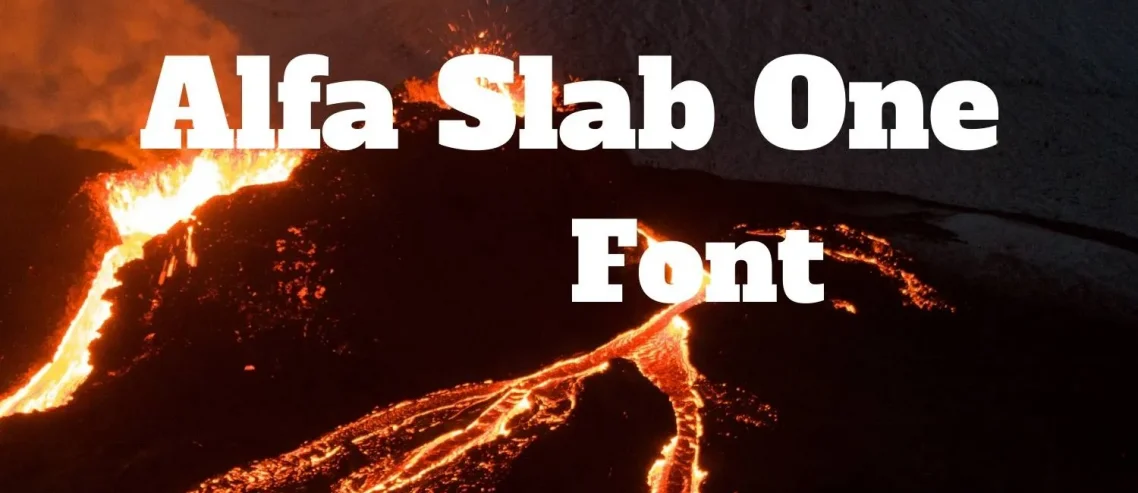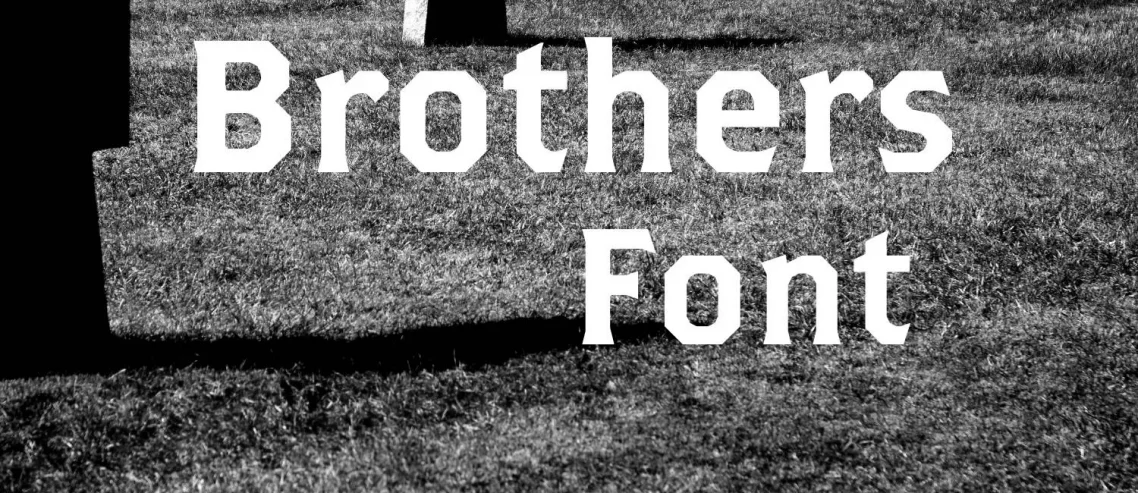
Runen Font Free Download
Runen Font is a typeface with glyphs representing the Elder Futhark runes. It was designed by Peter Johnstone in 1974 and revised in 2005. The font is Unicode compliant and can be used on any computer or operating system that supports the Unicode standard. This font is also be generated through the generator tool. You …
Grand Font Free Download
Grand Font is a beautiful and historic area in the city of Sarajevo. It is located on the slopes of Mount Trebevic and offers stunning panoramic views of the city. This Font has a long and rich history, dating back to the Ottoman Empire. Today, it is a popular tourist destination due to its natural …
Flexo Font Free Download
Flexo font is a sans-serif typeface designed by Dutch graphic designer Pieter van Rosmalen. It was released in 2013 by Rosmalen’s independent type foundry, Just van Rossum. This font is a geometric sans-serif with restrained curves, designed for screen use. The font is available in six weights, from thin to black, with matching italics. This …
Hello Sunshine Font Free Download
Hello, Sunshine font is a handwritten font created by Cosimo Lorenzo Pancini and Andrea Tartarelli. The font was designed as part of the “FontStruct” font-building contest in 2009. IF you want to get a new unique shape then you can also combine this font with Neon Led Light Font. This font is very similar to …
Brothers Font Free Download
Brothers Font is a freeware font designed by two brothers, Tiziano and Diego Miani. It is available in TrueType format for Windows and Macintosh. This font has also included a few alternate characters, such as a lowercase “a” with a swash, and an ampersand. If you’re looking for a fun, unique font to add to …
Alfa Slab One Font Free Download
Alfa Slab One Font is a typeface designed by Svetoslav Simov. The font was inspired by the classic serif of the late 19th and early 20th centuries. This Font is available in two weights, Regular and Bold. The font is perfect for any design project …